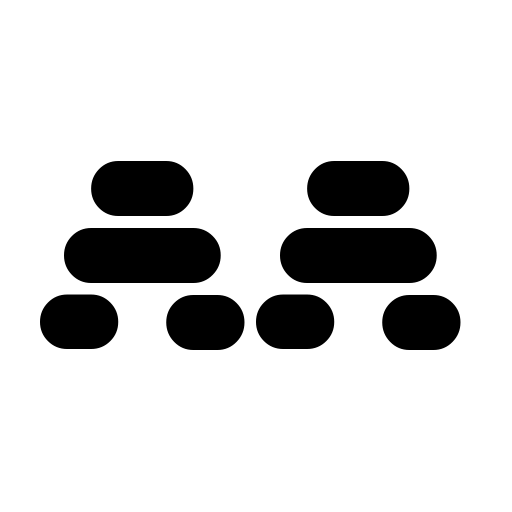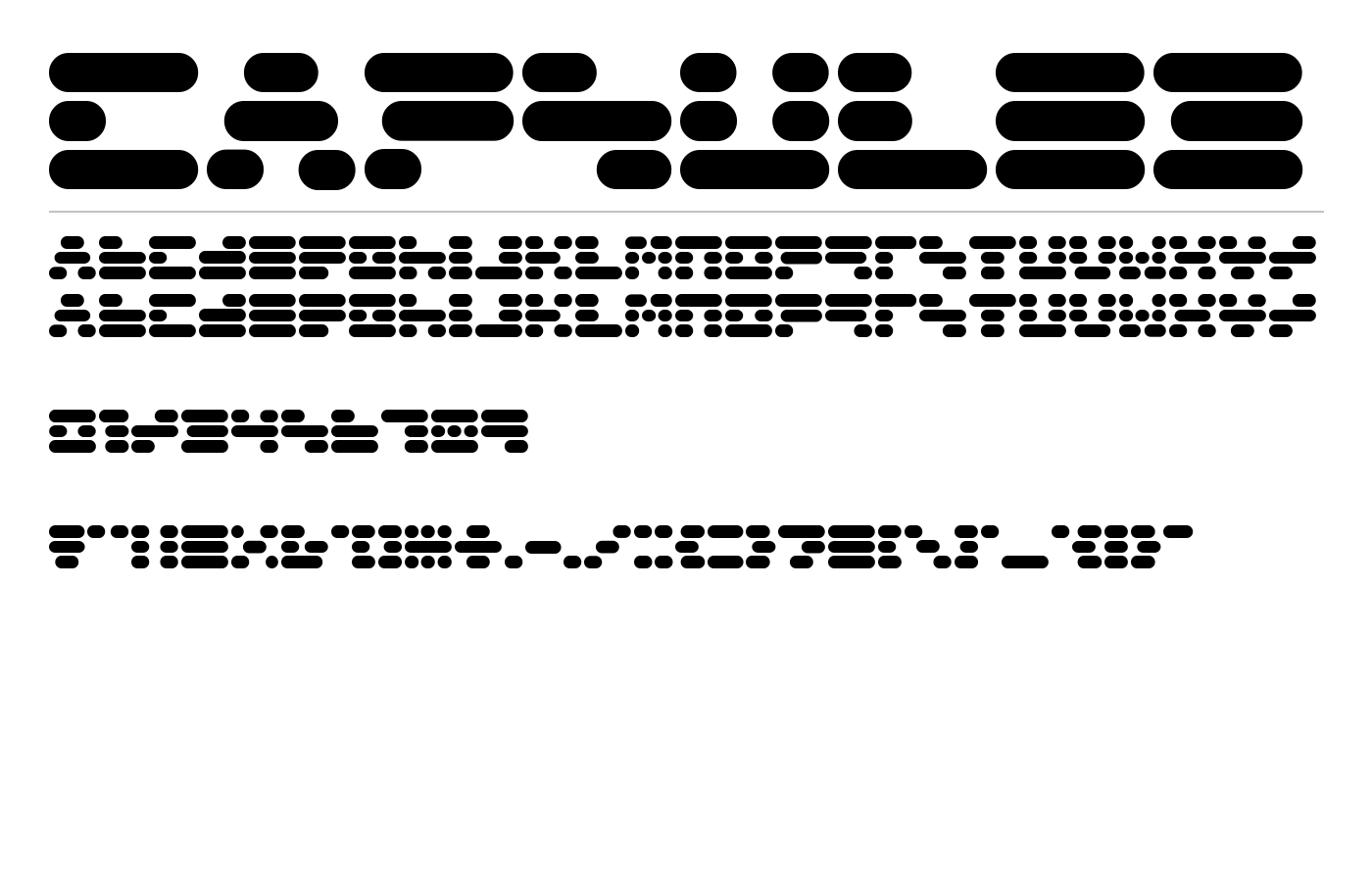
Capsule3 is a bold, geometric sans serif font characterized by its unique rounded capsule shapes that form each letter and number, giving it a futuristic and playful vibe. Its consistent width, pixel-like structure, and even spacing create a modern and tech-inspired aesthetic, making it ideal for eye-catching headlines, logos, or digital-themed designs. This font stands out with its distinctive, modular formality while maintaining excellent readability at larger sizes.
Capsule3 Font